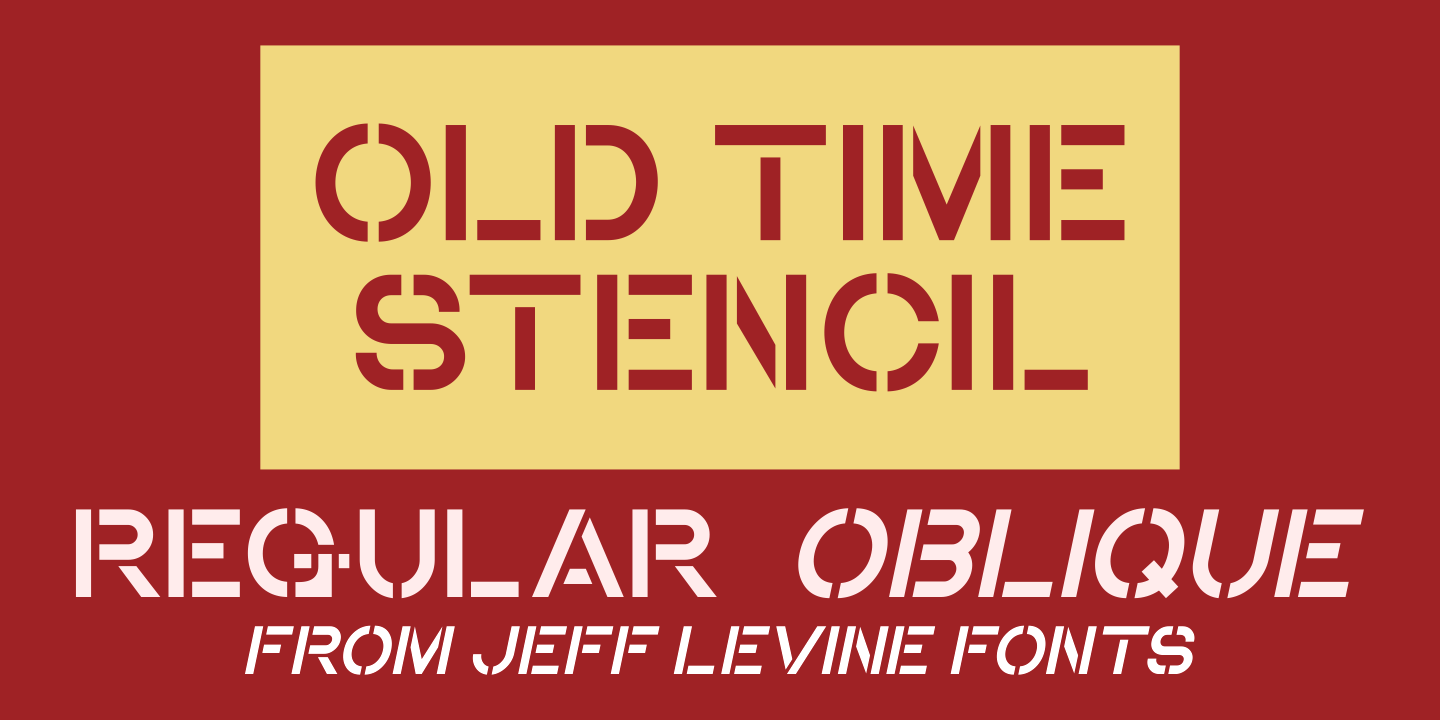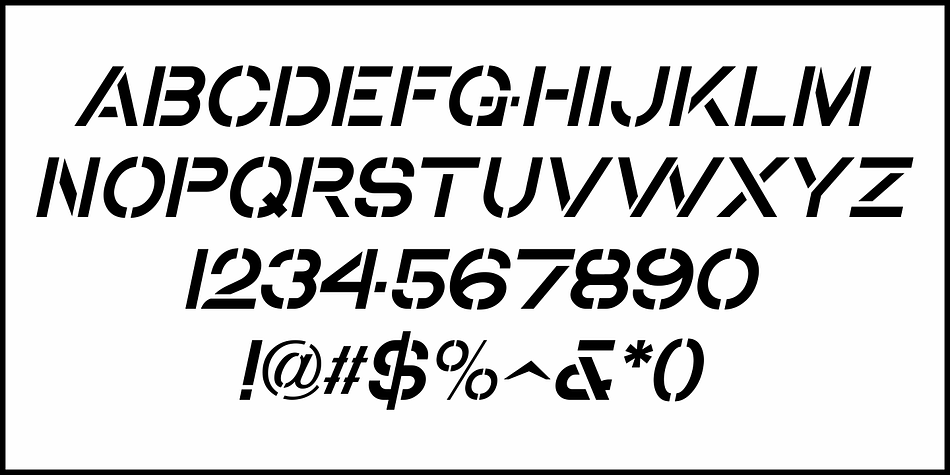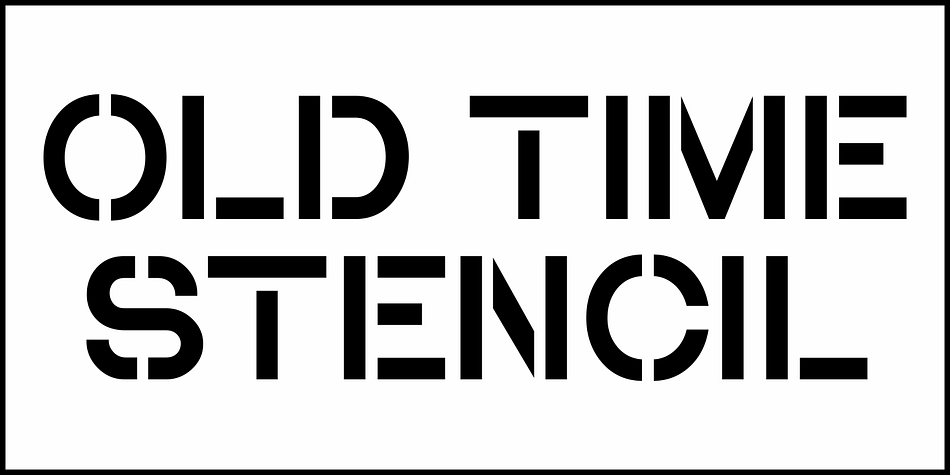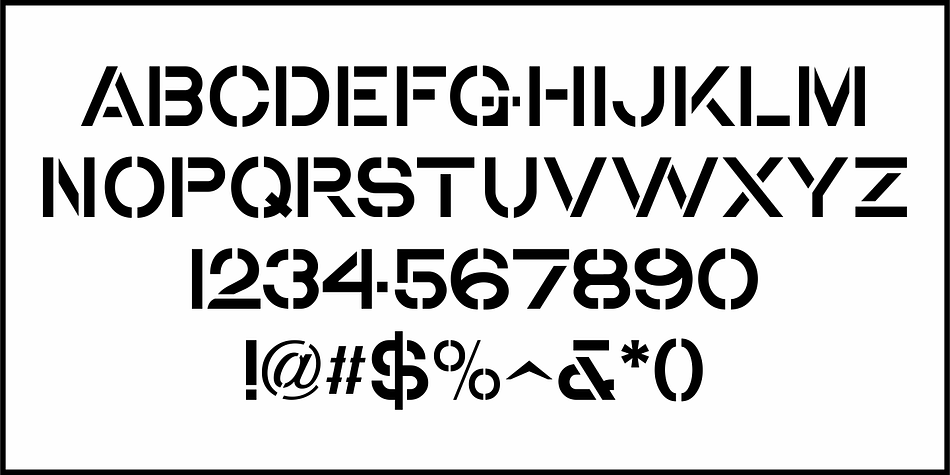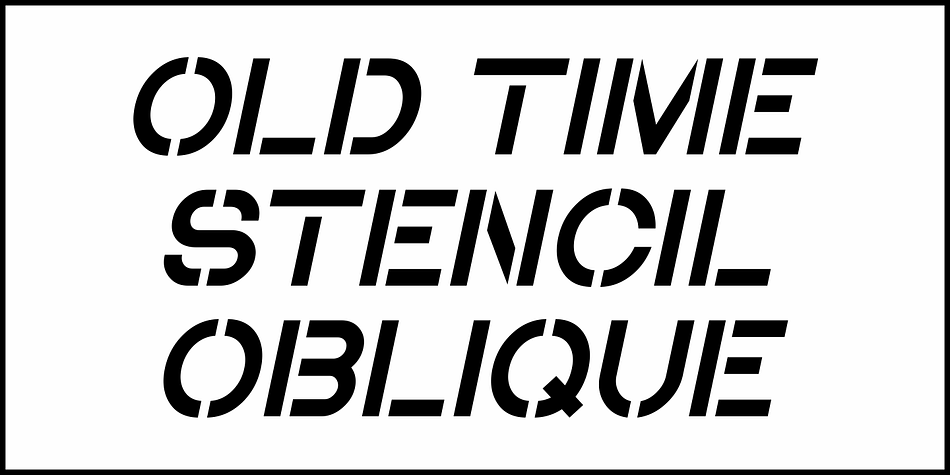
OLD TIME STENCIL JNL
Designed by Jeff Levine, Old Time Stencil JNL is a stencil font family. This typeface has two styles and was published by Jeff Levine Fonts.
A type example within the pages of the John Ryan Foundry speciment book (circa 1894) was that of a sans serif stencil alphabet adorned with floral embellishments.  While this type of ornate decoration to letter forms was popular during the Victorian era, it is rarely used today.
However, the alphabet and numerals themselves had a particular charm in their simplicity, and a digital version (without all of the artistic “extras”) has been digitally redrawn as Old Time Stencil JNL - available in both regular and oblique versions.